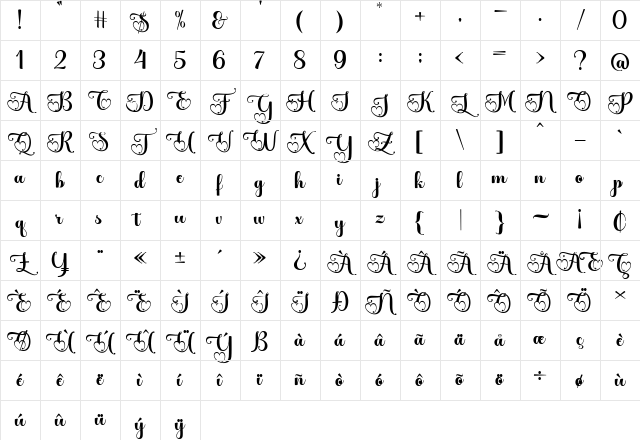
Alista Script Regular Free Font
Alista Script Regular
Design Context for Alista Script
Alista Script flows with the natural rhythm of handwritten lettering, making it ideal for designs that call for warmth and personal expression.
Font Pairing: Combine Alista Script with a simple geometric sans for maximum contrast - the tension between flowing curves and clean structure is a classic typographic pairing.
Pro Tip: Use Alista Script for short runs of text - names, titles, or taglines. Extended body copy in script faces tires the eye quickly.